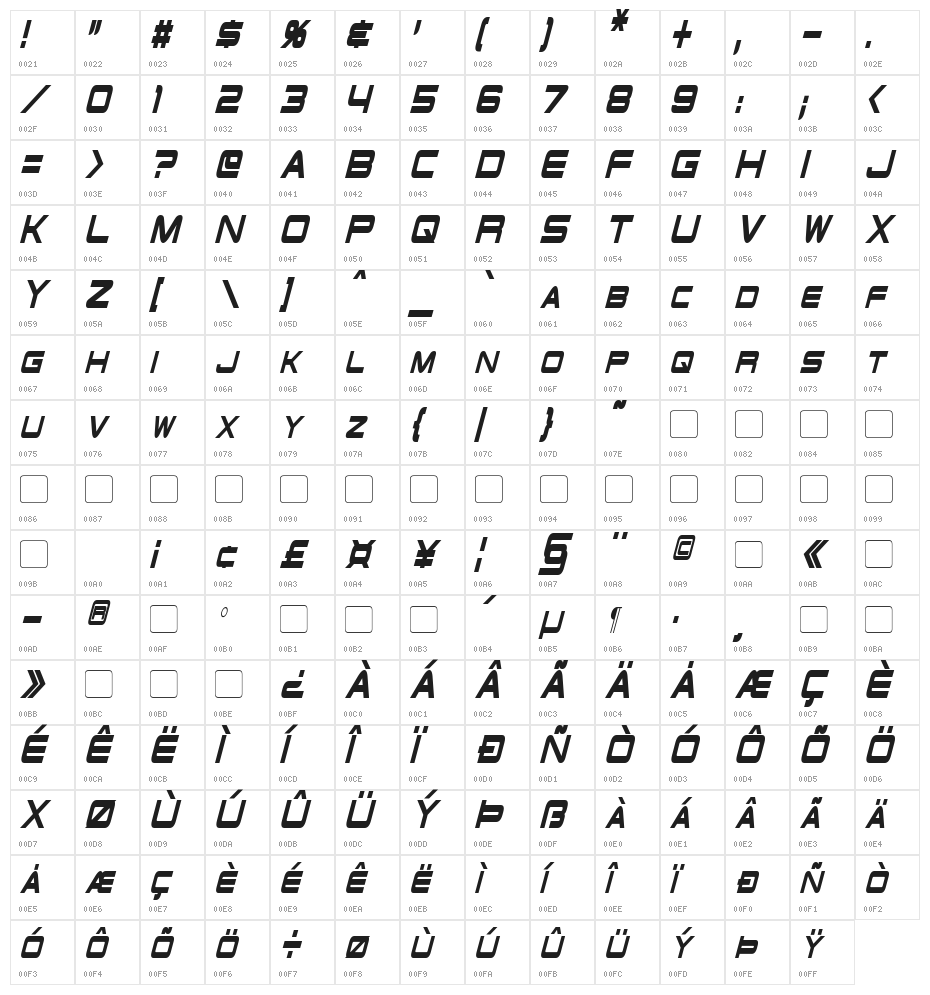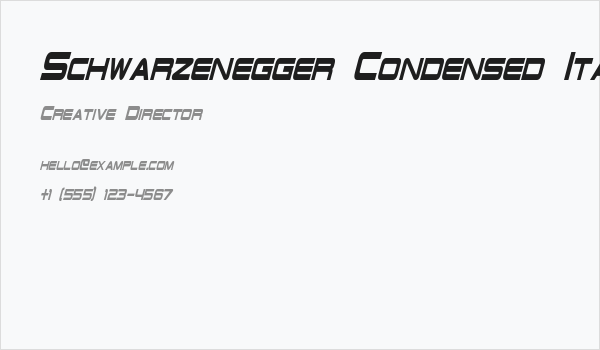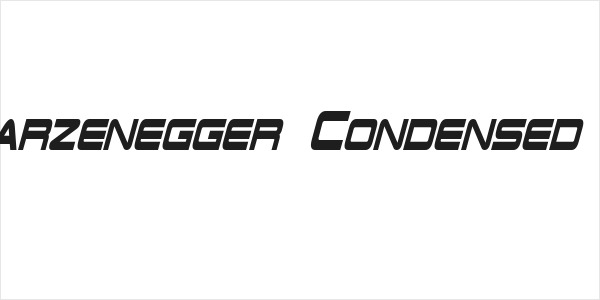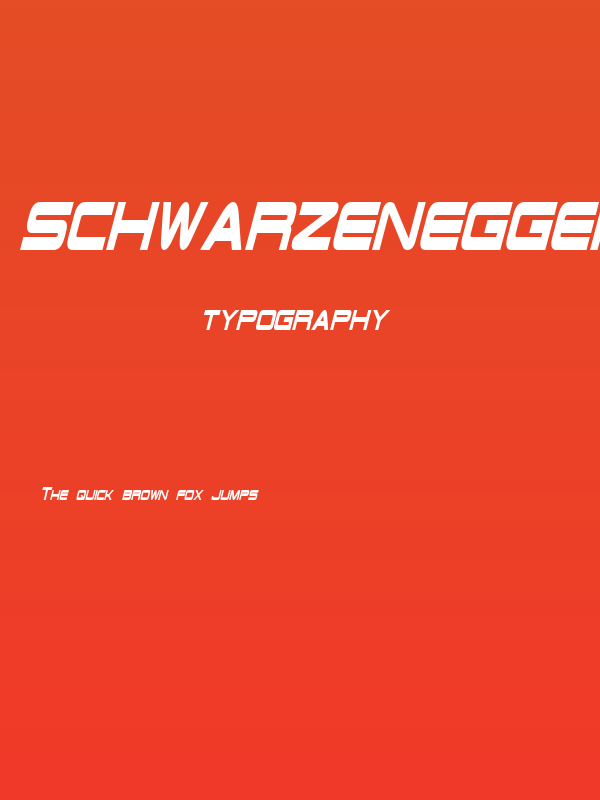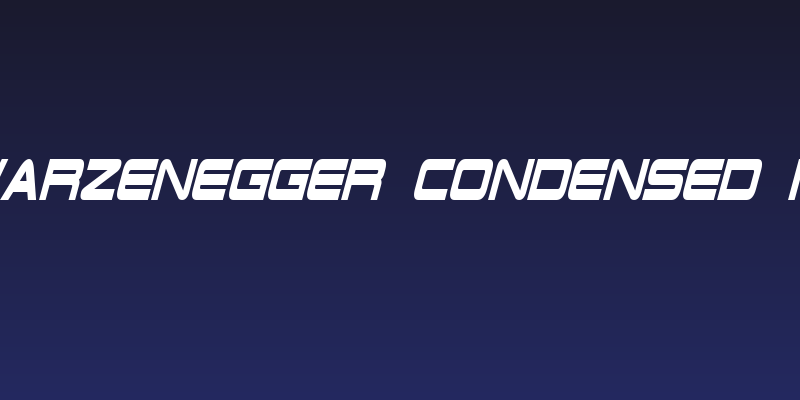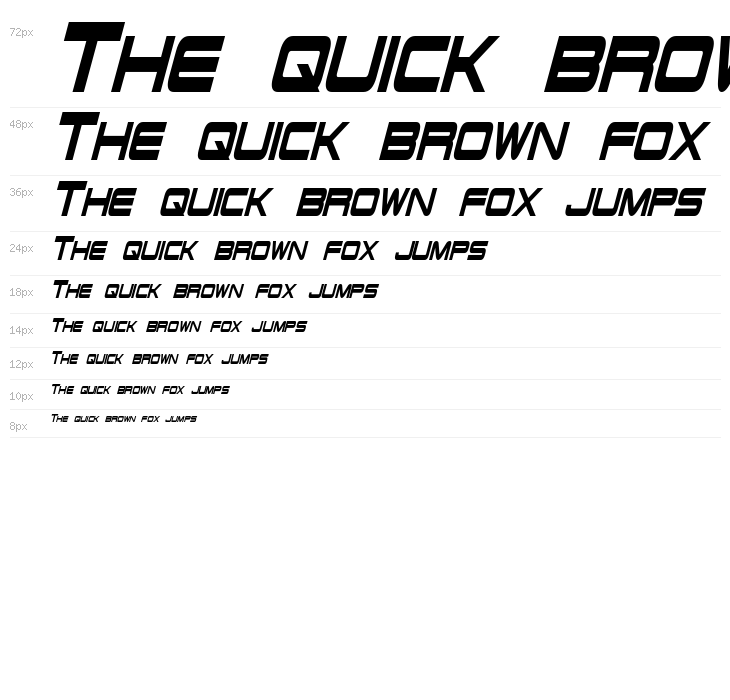
Schwarzenegger Condensed Italic Font
Schwarzenegger Condensed Italic Description
This font features a bold, italicized style with a condensed width, giving it a strong and dynamic appearance. The characters are slanted forward, enhancing the sense of motion and speed. The strokes are thick and consistent, providing a robust and impactful look. The design is clean and modern, with a slight geometric influence, making it suitable for attention-grabbing headlines and titles. The numerals and special characters maintain the same bold and italicized characteristics, ensuring uniformity across all glyphs.